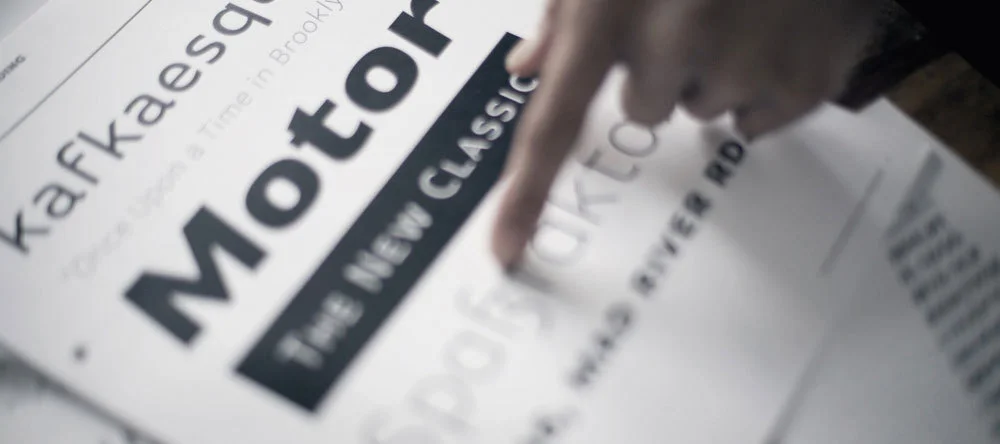
FF Basic Gothic
HvD Fonts · David Berlow
A utilitarian grotesque sans by David Berlow, drawn in the tradition of American workhorse typefaces for text and editorial use.
Originally released under the FontFont label, FF Basic Gothic draws on the American grotesque tradition with clean, functional letterforms suited to extended text setting. The family covers a practical weight range with matching italics, making it a reliable choice for editorial and information design. It lacks the distinctive quirks of more characterful grotesques but performs solidly across a range of applications.
FF Basic Gothic is a grotesque sans-serif drawn by David Berlow for FontFont, rooted in the American grotesque tradition with a straightforward, utilitarian character.